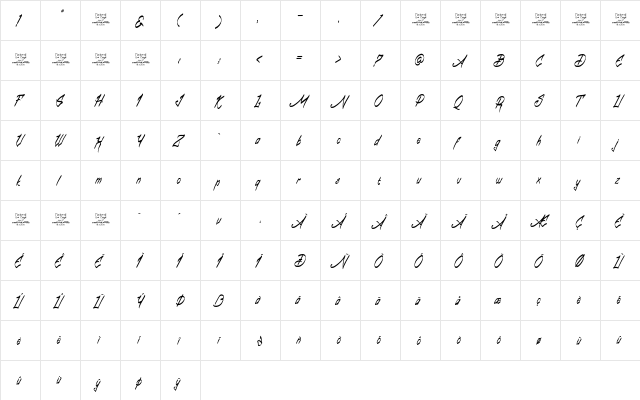
Babball Personal Use Regular
| Foundry | Tama Putra |
| Designer | Tama Putra |
Design Context for Babball Personal Use Typeface
Babball Personal Use is a composed and adaptable typeface that performs quietly and consistently across a wide range of design contexts.